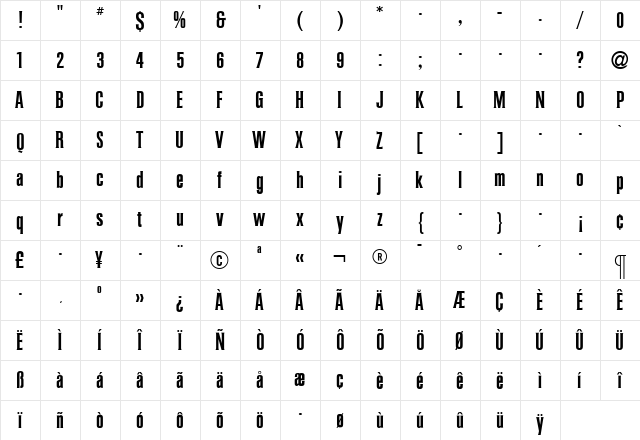
ColiseumMedium Roman
Design Context for ColiseumMedium Typeface
ColiseumMedium is a composed and adaptable typeface that performs quietly and consistently across a wide range of design contexts.